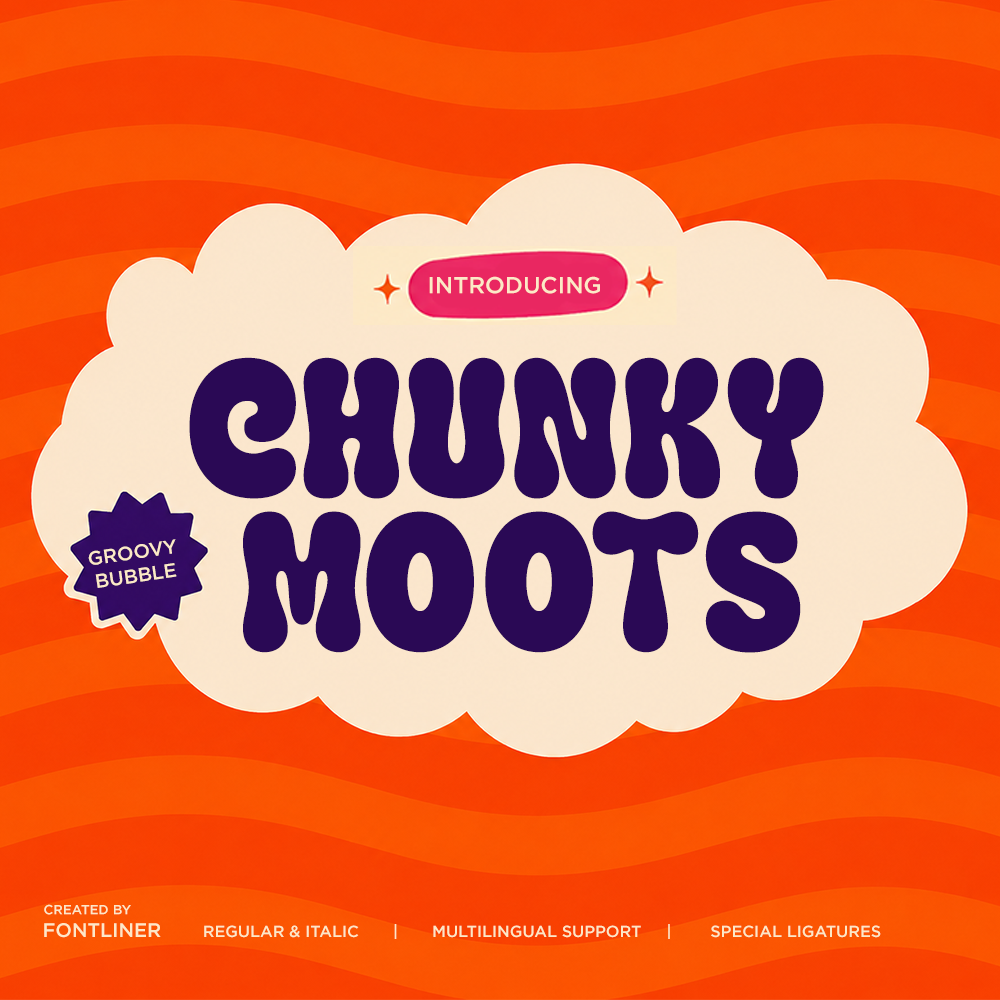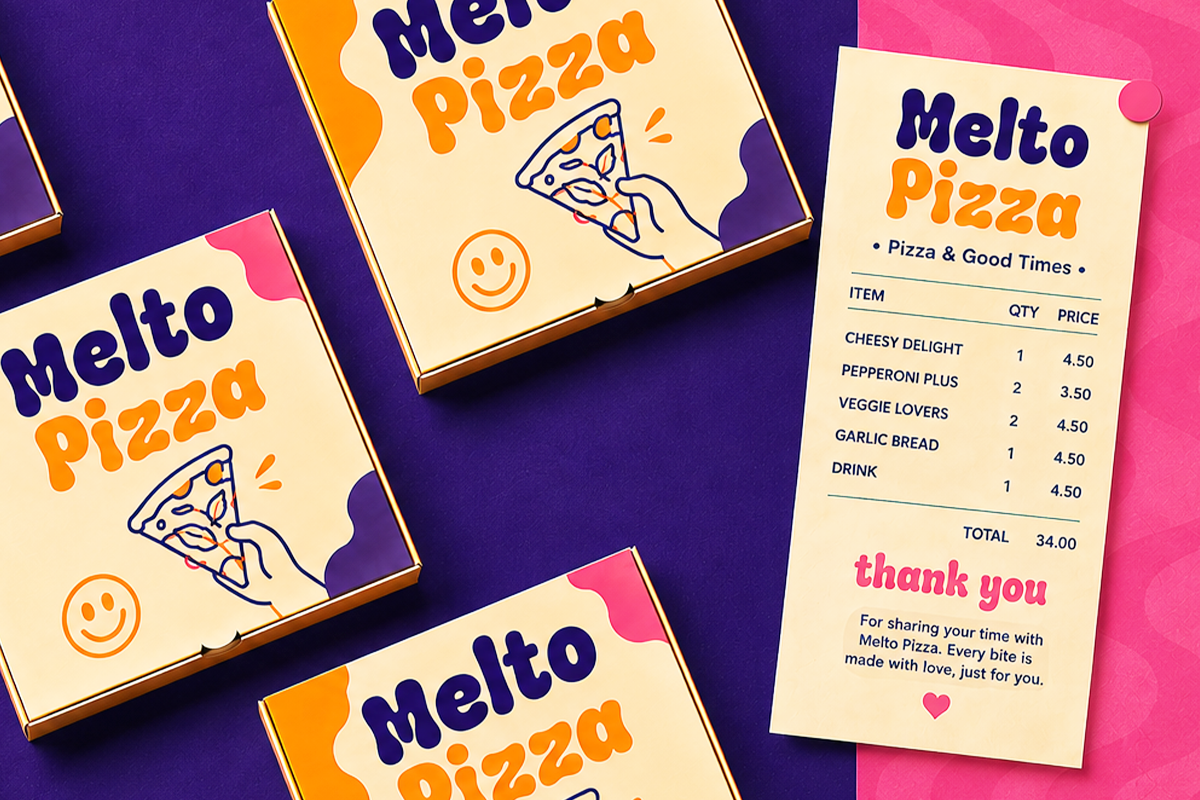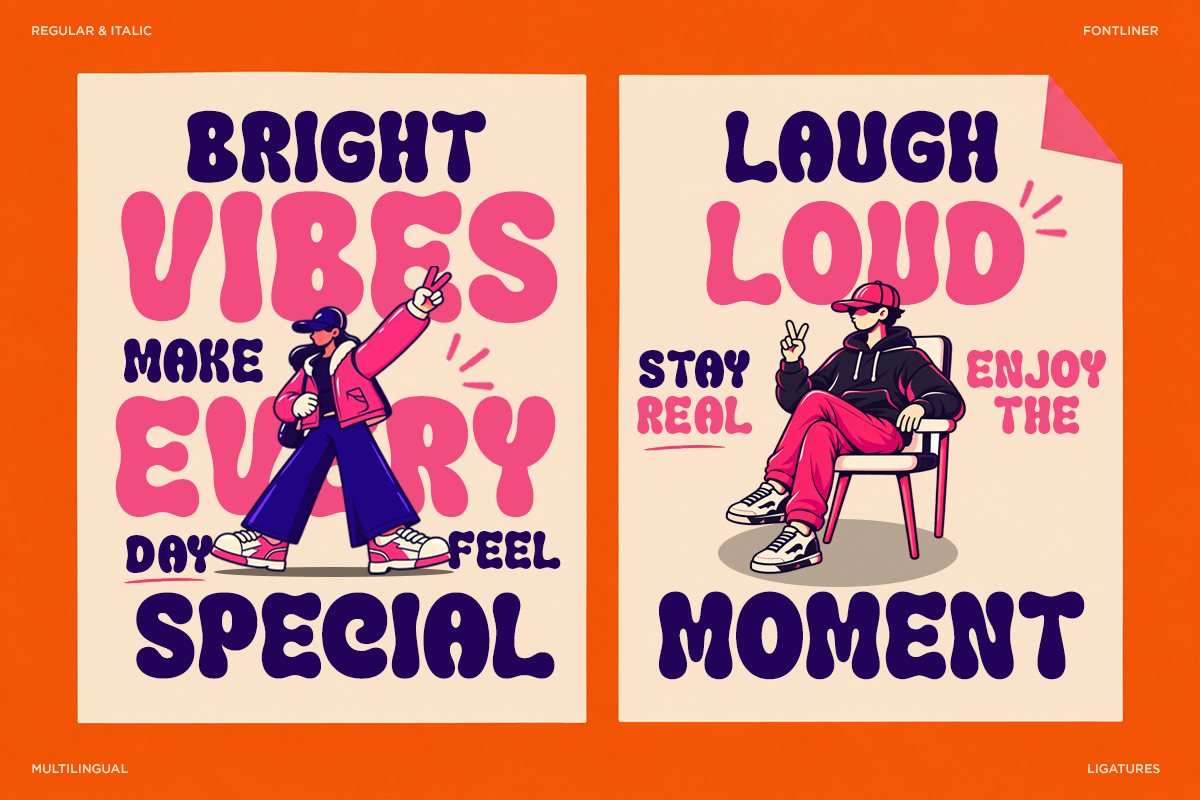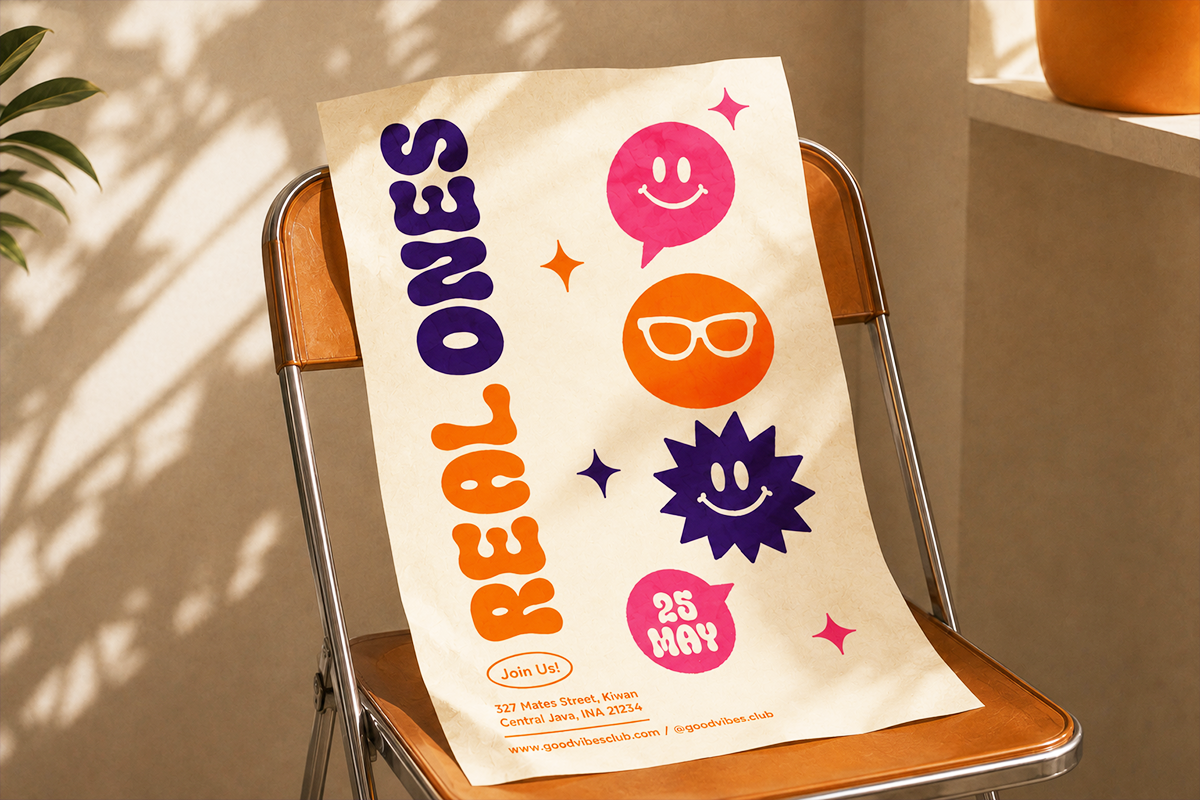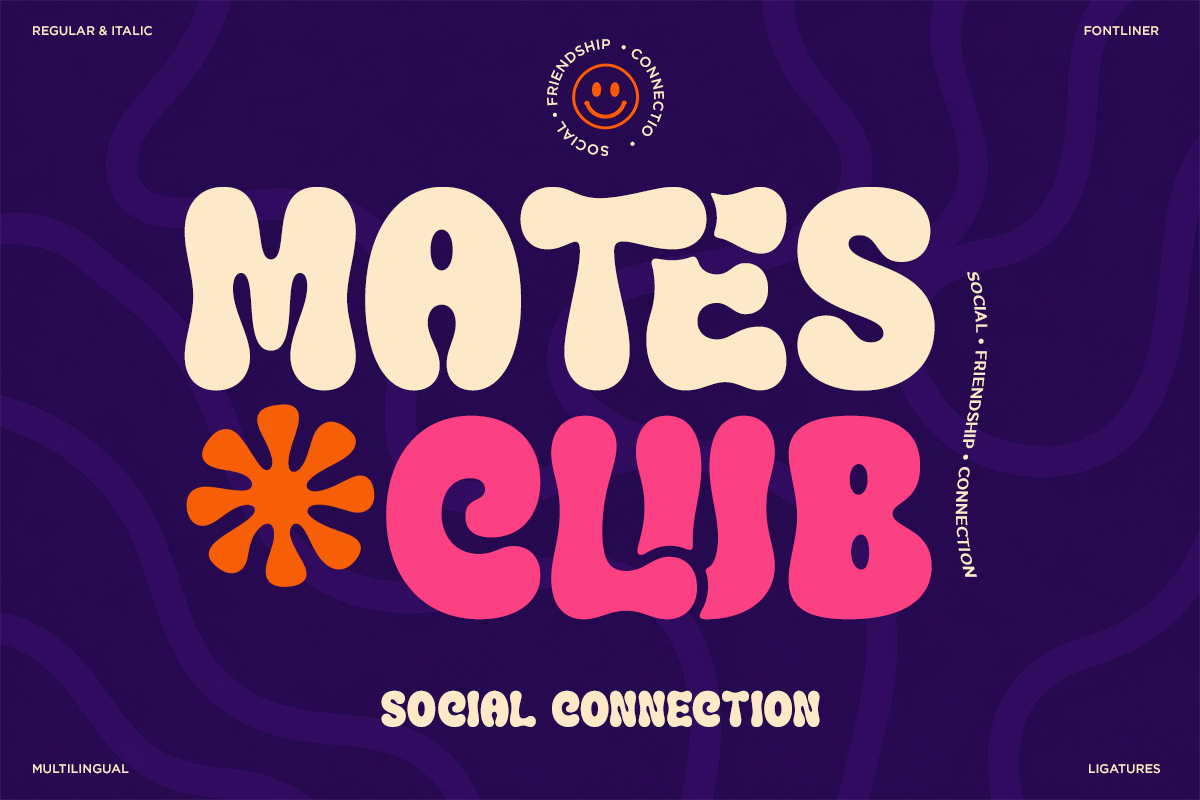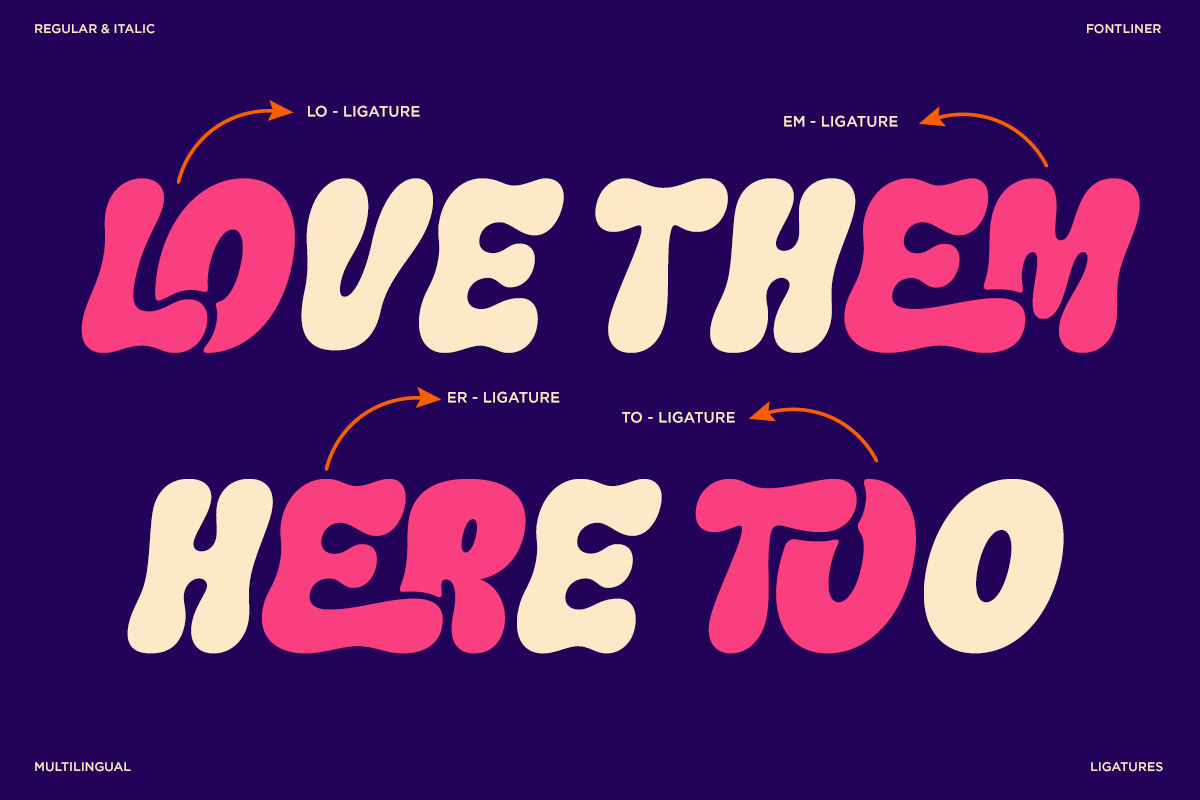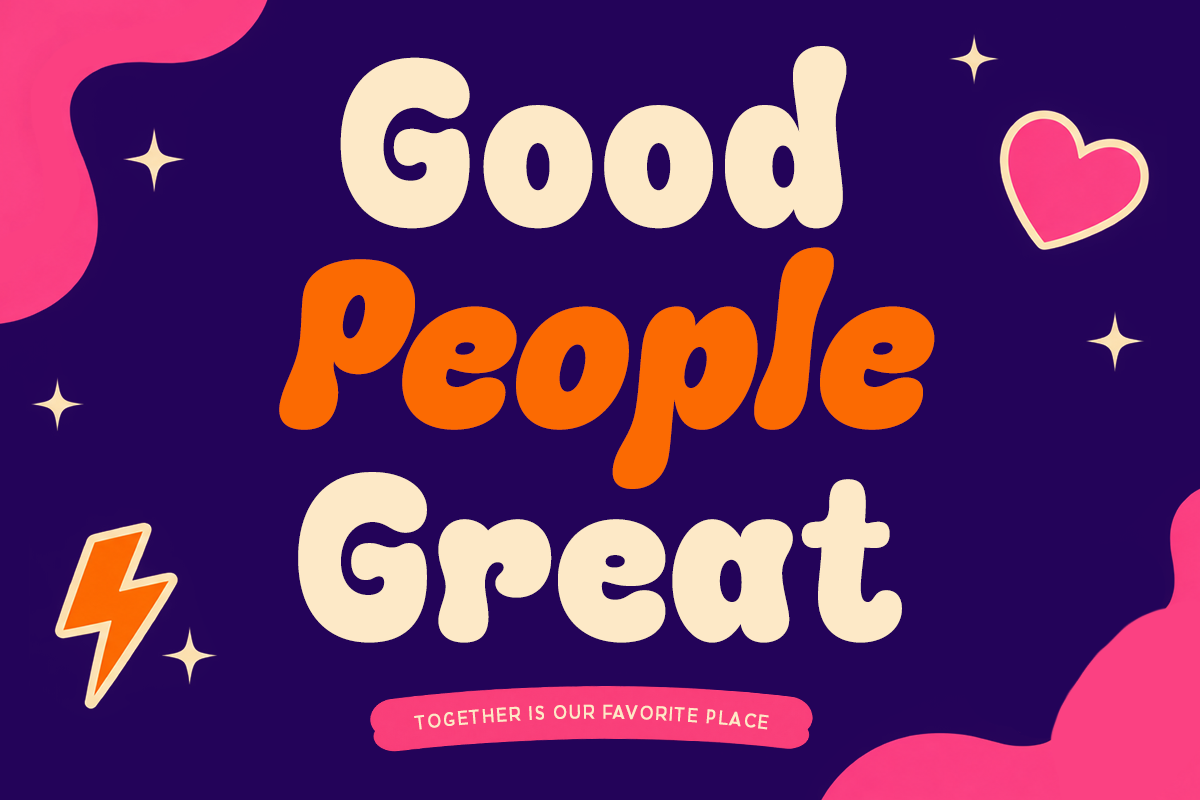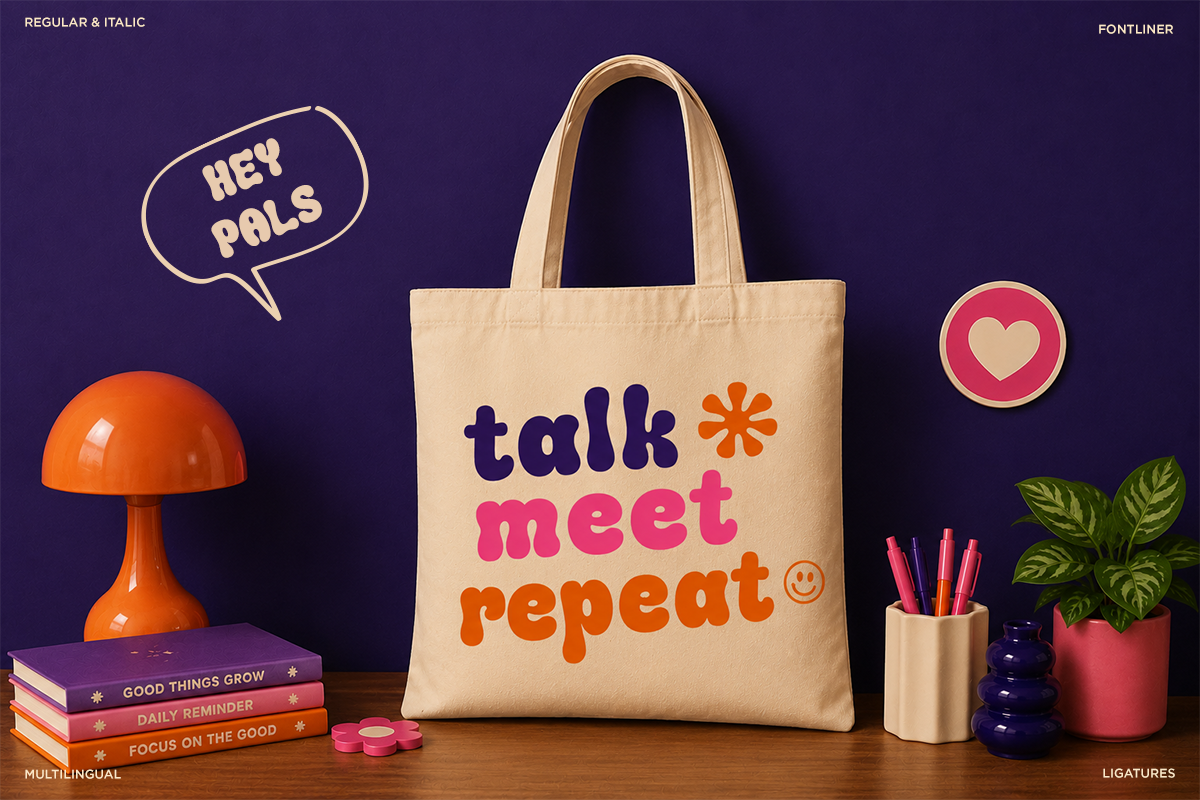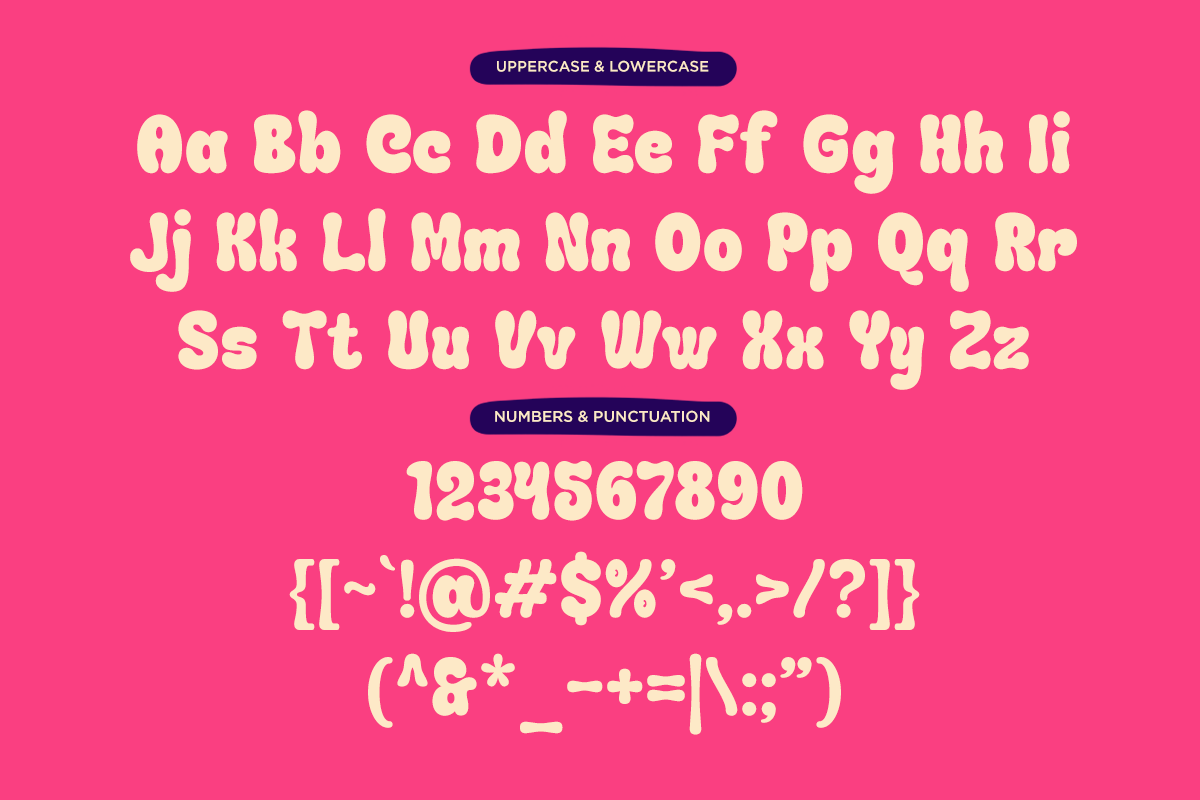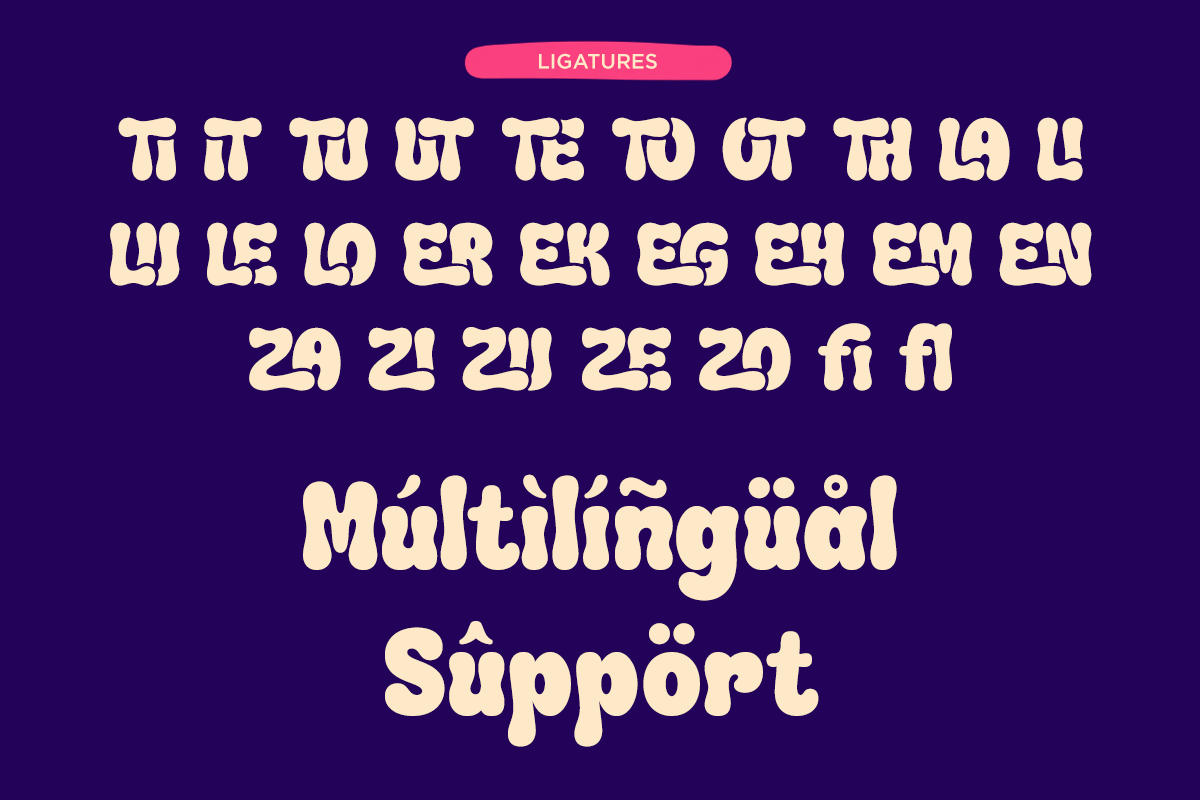
Chunky Moots – Playful Chunky Display Font
Chunky Moots is a bold and playful display font with chunky rounded letterforms and a fun, friendly personality. Its expressive shapes are perfect for food branding, packaging, restaurant menus, posters, social media graphics, kids’ designs, stickers, merchandise, and cheerful logo projects.
Designed to make headlines stand out, Chunky Moots brings a colorful retro-pop feel to both digital and print designs. The font also includes multilingual support, making it a versatile choice for creative projects that need a bold and approachable visual style.
• Regular and Italic
• Stylistic Ligatures
• Uppercase and Lowercase
• Number, Symbol, and Punctuation
Chunky Moots is a bold display font with chunky, rounded letterforms, available in Regular and Italic styles. It includes stylistic ligatures, uppercase and lowercase characters, numbers, symbols, punctuation, multilingual support, and is provided in OTF, TTF, and WOFF formats.